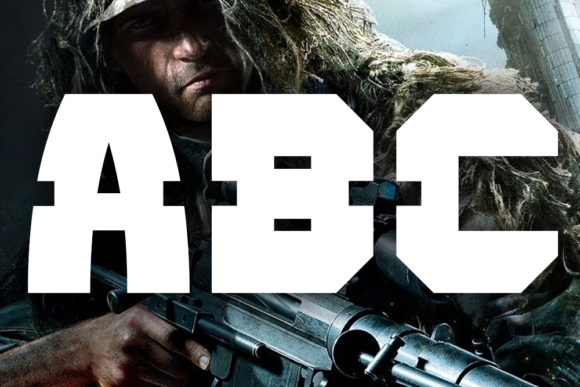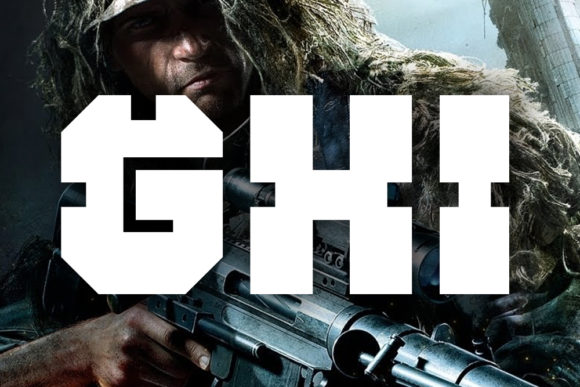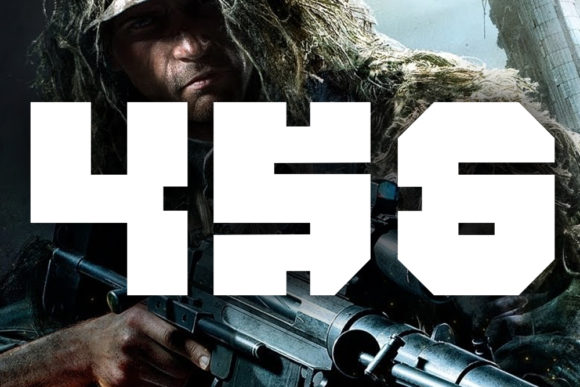
Introducing Enemy Font: The Ultimate Industrial Look for Your Designs
Are you tired of using the same old fonts in your designs? Look no further! Enemy Font is here to revolutionize your typography with its unique industrial look. This awesome font comes in regular and 3D versions, making it perfect for any project that needs a bold statement. Whether you’re designing a poster, print, or t-shirt, Enemy Font is sure to make your work stand out.
What is Enemy Font?
Enemy Font is a modern, industrial-style font designed to add an edgy touch to your designs. Its unique and bold appearance makes it perfect for creating striking headlines, titles, and slogans. The font comes in two versions: regular and 3D. The regular version is ideal for 2D designs, while the 3D version adds an extra dimension to your text, making it pop out.
Key Features of Enemy Font
- Industrial Look: Enemy Font boasts a rugged, industrial aesthetic that’s perfect for designs that require a bold and edgy look.
- Regular and 3D Versions: The font comes in two versions, allowing you to choose the one that best suits your design needs.
- High-Quality Design: Enemy Font is designed with precision and attention to detail, ensuring that it looks great in any size or resolution.
- Versatile: This font is perfect for a wide range of design projects, including posters, prints, t-shirts, and more.
Why Choose Enemy Font?
There are many fonts available, but Enemy Font stands out from the crowd. Here are some reasons why you should choose Enemy Font for your next design project:
- Unique Style: Enemy Font has a distinctive industrial look that’s hard to find in other fonts.
- Easy to Read: Despite its bold and edgy appearance, Enemy Font is easy to read, making it perfect for headlines and titles.
- Customizable: You can use Enemy Font in a variety of colors and sizes to match your brand’s style.
- Time-Saving: With Enemy Font, you can create professional-looking designs in no time, saving you hours of work.
How to Use Enemy Font in Your Designs
Using Enemy Font in your designs is easy. Here are some tips to get you started:
- Pair it with Other Fonts: Combine Enemy Font with other fonts to create a unique and visually appealing design.
- Experiment with Colors: Try out different colors to find the one that best matches your brand’s style.
- Use it for Headlines: Enemy Font is perfect for headlines and titles, making it a great addition to any poster, print, or t-shirt design.
- Play with Sizes: Experiment with different font sizes to create visual interest and hierarchy in your design.
Who Can Benefit from Enemy Font?
Enemy Font is perfect for designers, crafters, and anyone who wants to add an industrial touch to their designs. Here are some professionals who can benefit from using Enemy Font:
- Graphic Designers: Enemy Font is a great addition to any graphic designer’s toolkit, allowing them to create bold and eye-catching designs.
- T-Shirt Designers: The 3D version of Enemy Font is perfect for t-shirt designs, adding an extra dimension to your text.
- Print Designers: Enemy Font is ideal for print designs, such as posters, flyers, and brochures.
- Crafters: Enemy Font can be used in various crafting projects, such as making signs, banners, and other DIY projects.
Enemy Font is an awesome font with an industrial look that’s perfect for designers and crafters who want to add a bold touch to their designs. With its regular and 3D versions, this font is versatile and can be used in a wide range of projects. Whether you’re designing a poster, print, or t-shirt, Enemy Font is sure to make your work stand out. So why wait? Download Enemy Font today and take your designs to the next level!